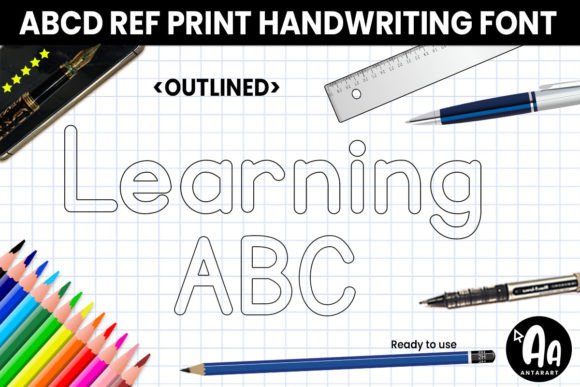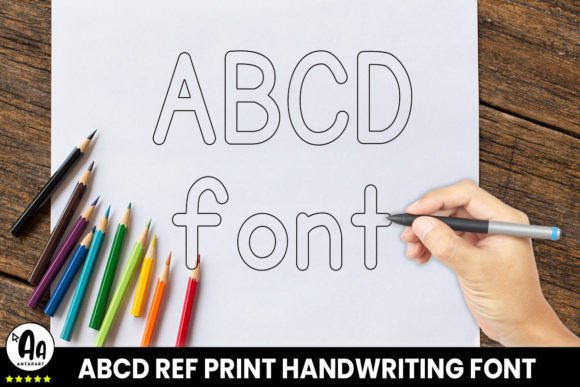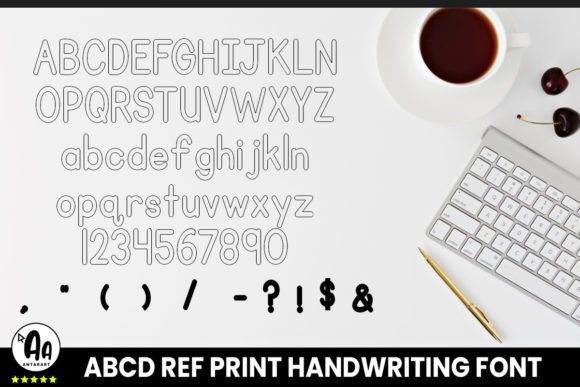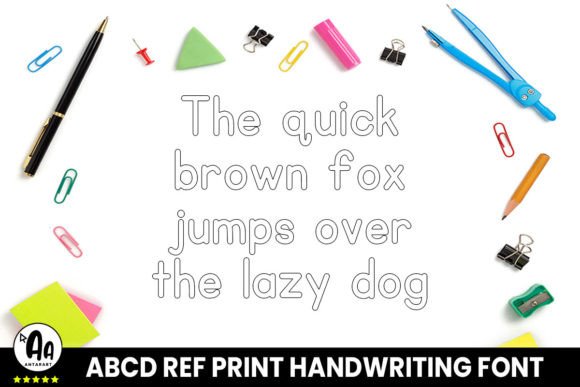
Abcd Ref Outlined Font
About the Abcd Ref Outlined Font
Meet Abcd Ref Outlined Font, a stunning font that brings a touch of elegance and professionalism to any design. ABCD Ref Outlined (ABCD Ref font family)
This efficient outlined display font is based on the D’Nealian Method US school and helps you create thousands of worksheets. It is a great learning resource for those who want to learn or teach the print alphabet enjoyably and interactively.
Its outlined structure and friendly, rounded forms make Abcd Ref Outlined ideal for children’s books, educational materials, and playful branding projects. It works exceptionally well in headlines, short text blocks, and logos where its distinctive character can shine. However, its low x-height and outlined style make it unsuitable for body text or long paragraphs; readability would suffer.
For a balanced and sophisticated pairing, consider combining Abcd Ref Outlined with a clean sans-serif like Open Sans for body copy or a classic serif like Garamond for a more formal feel. Alternatively, a geometric sans-serif such as Futura would provide a modern contrast.
The overall personality of Abcd Ref Outlined is approachable and cheerful, making it a strong choice for brands targeting younger audiences or those wishing to convey a sense of fun and approachability.